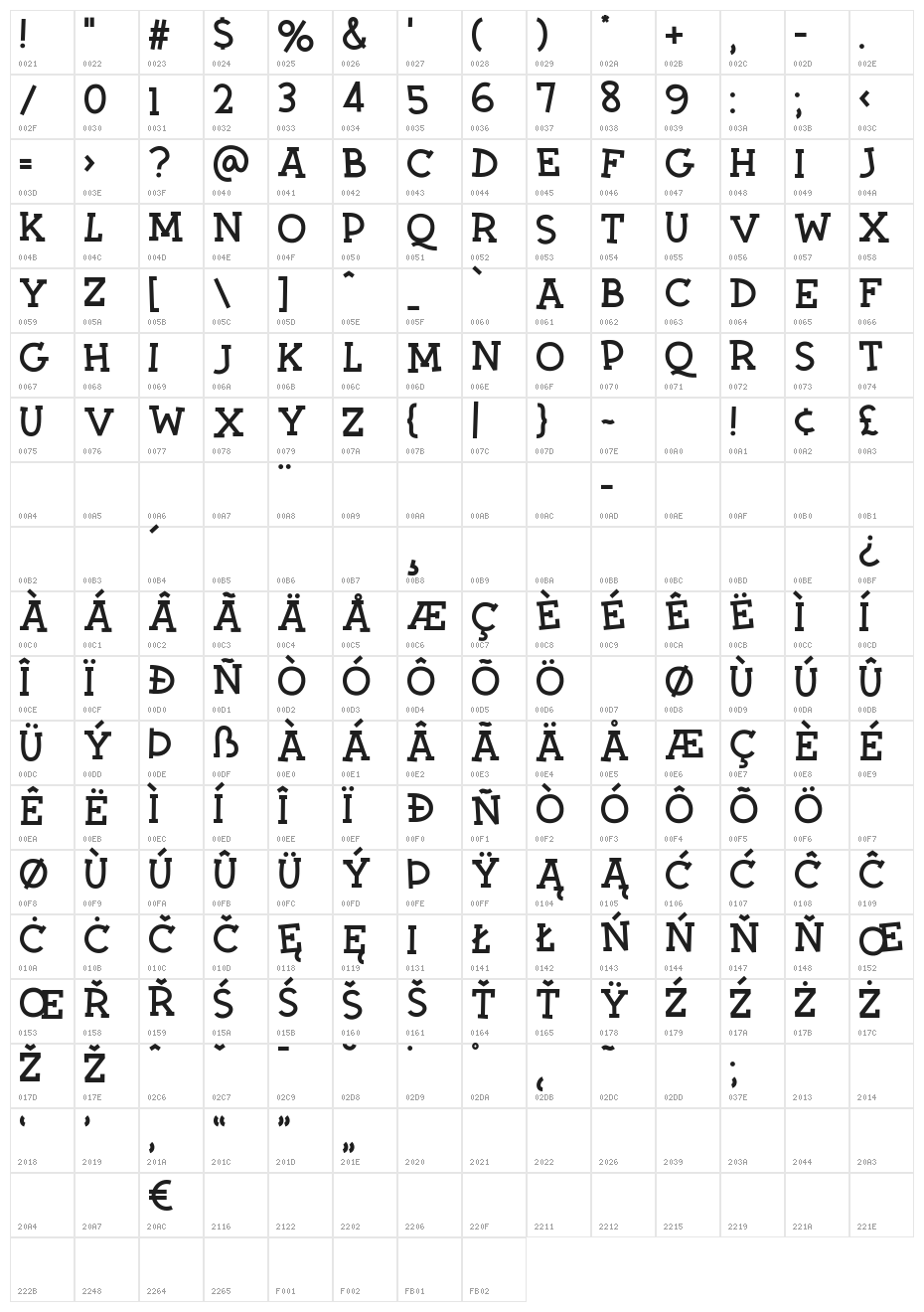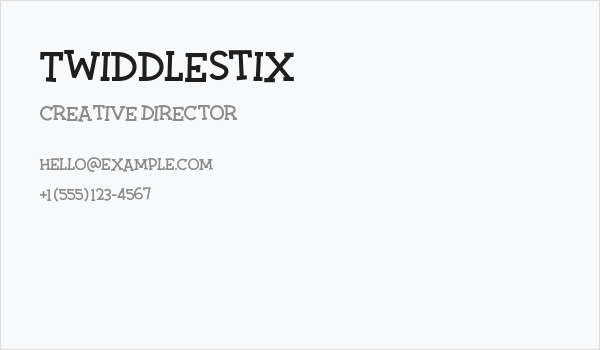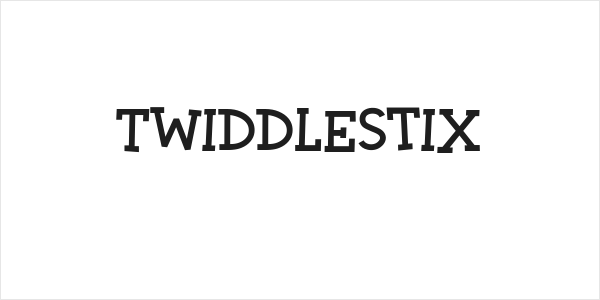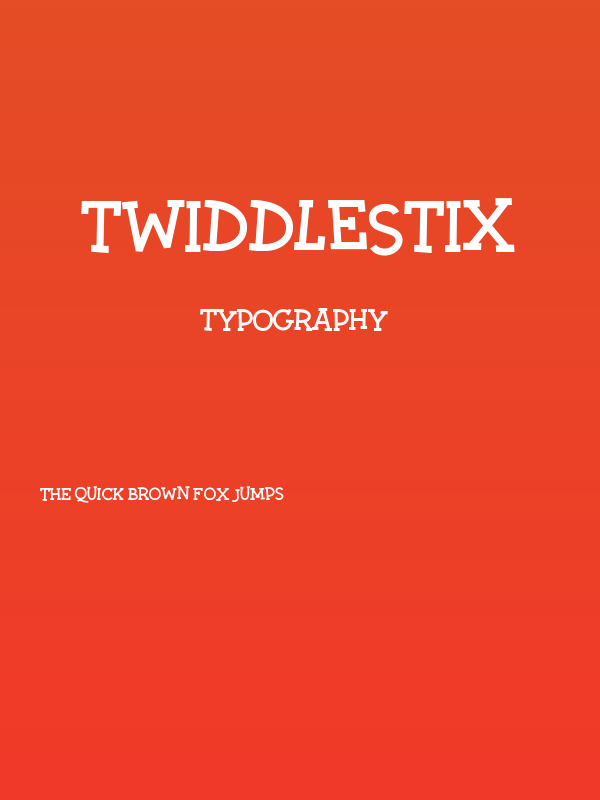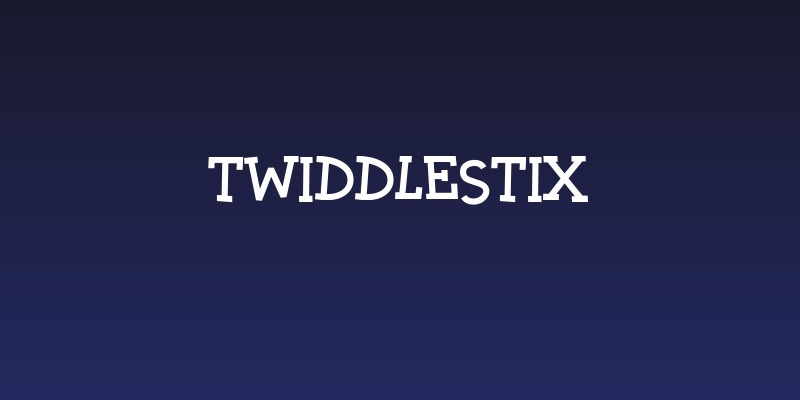
Twiddlestix Font
Twiddlestix Description
This font features a playful and whimsical design with a bold and slightly irregular stroke. The characters exhibit a unique twist, giving them a dynamic and lively appearance. The uppercase letters are particularly distinctive, with exaggerated serifs and a slight tilt that adds to the font's quirky charm. The numerals and special characters maintain this playful style, ensuring consistency across all glyphs. The overall look is both fun and approachable, making it suitable for projects that require a touch of creativity and personality.
| Proposed Projects | Ideal for children's books, playful branding, creative posters, and fun invitations. |